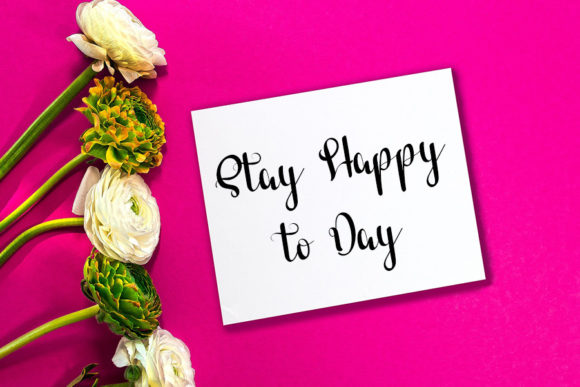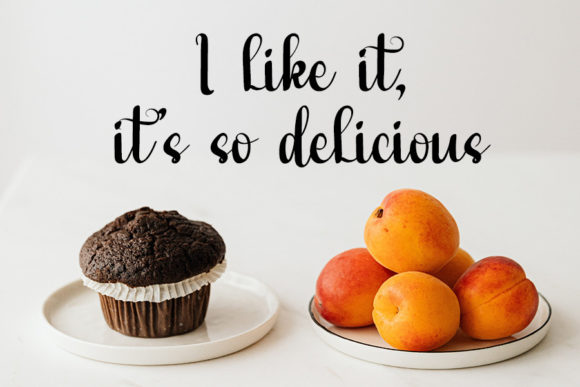
Loving Cookies Font
db-ku.com - Script & Handwritten -- Loving Cookies is a trendy handwritten font with a contemporary atmosphere and impeccable form, inspired by timeless classic calligraphy. It will add elegance and class to any of your design projects. This font can be used to write various kinds of products according to the aspect of each need.